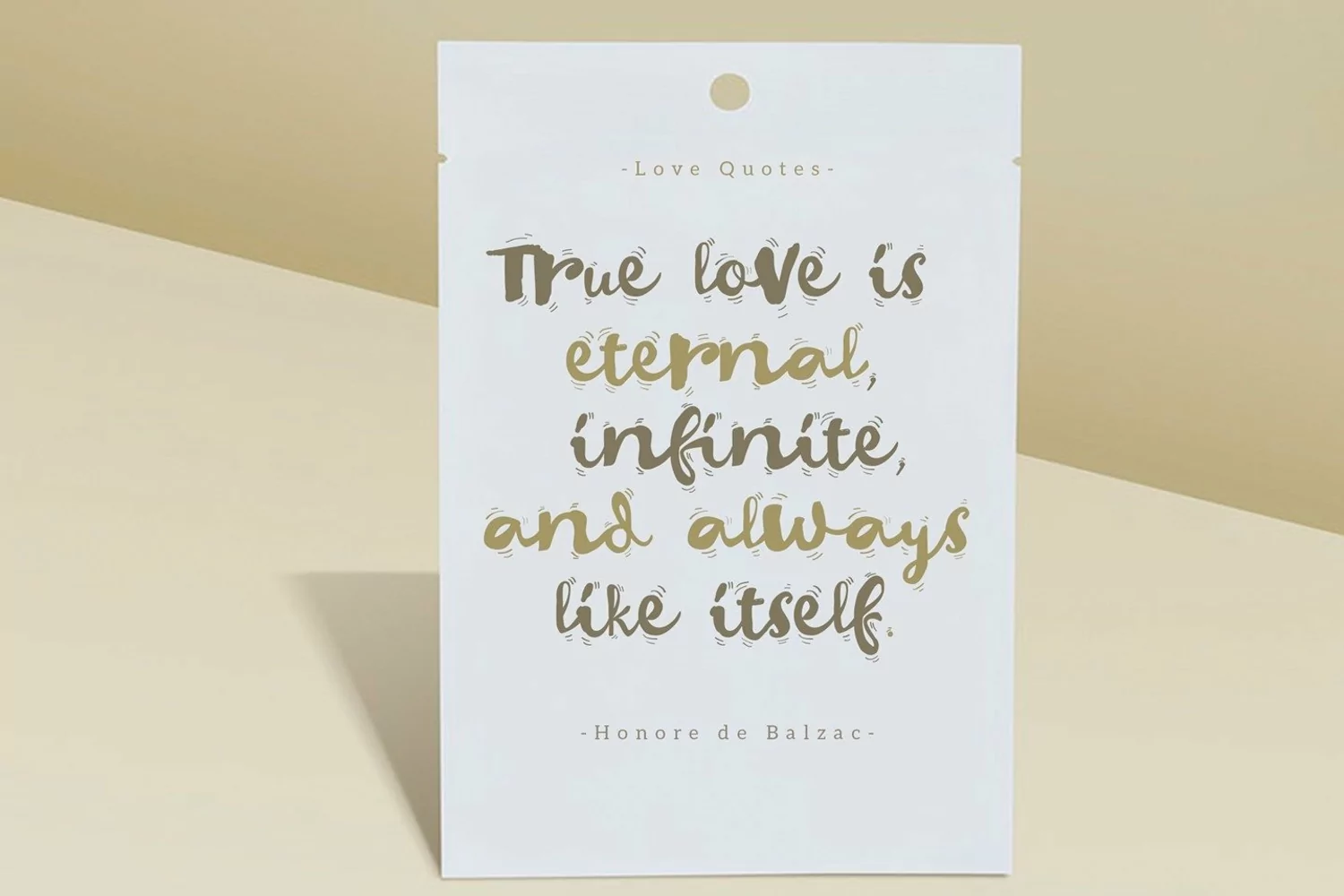
Currant Handwritten Font
Curriuos is a unique display font with a splash of ink around each letter. This font is the perfect and unique font for any event and invitations anniversary, party decorations, and many kids-themed events others.
- Initial Alternates
- Contextual Alternates
- Standard Ligatures
- Unique ligatures
- Stylistic Alternates
- Stylistic sets
- Basic Latin A-Z and a-z
- Numbers
- International Symbols Support